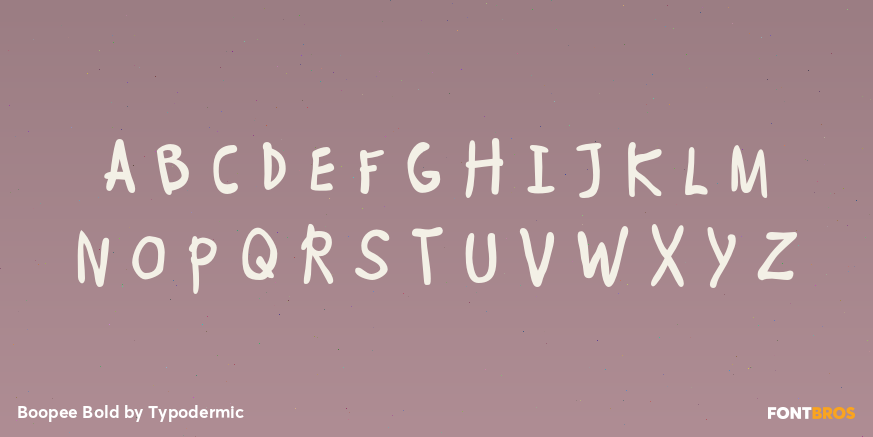
Boopee Bold
Buy NowActual children’s handwriting has something typography usually struggles to reproduce: awkward motor control. Letters wobble, proportions shift, and strokes land in unexpected places. Clean handwriting fonts are easier to use, but they can look like an adult carefully pretending to write like a child. Boopee keeps some of that awkwardness without giving up the practical advantages of type.
Its letterforms were originally drawn with a marker using the non-dominant hand, introducing hesitation and uneven movement at the source rather than adding distress afterward. Stroke widths fluctuate, letters sit a little unpredictably, and shapes sometimes resolve in ways a practiced hand would avoid. The alphabet remains open and legible enough to carry several lines rather than being restricted to a few decorative words.
That makes Boopee especially useful when a child’s written voice needs to appear inside an otherwise typeset design. Diary entries, camp letters, notes between characters, captions on drawings, scrapbook comments, and science-project observations can feel plausibly young while remaining easy to edit and reuse. Activity books, museum worksheets, scavenger hunts, craft projects, and classroom games can use the same voice for prompts such as Try This, Draw It Here, or My Hypothesis.
Boopee also works well for the informal layer around children’s products and environments: name stickers, reward charts, school supplies, craft kits, camp materials, library programs, zoo trails, and science-centre interactives. A conventional typeface can handle permanent information while Boopee supplies the questions, discoveries, labels, and comments that feel as though they came from the child.
Because repeated forms can quickly expose a handwriting font as mechanical, Boopee includes alternate combinations for common and troublesome pairs, introducing small changes where repetition would otherwise become conspicuous. Bold adds a heavier marker-like voice for headings, emphatic notes, and short kid-written statements.